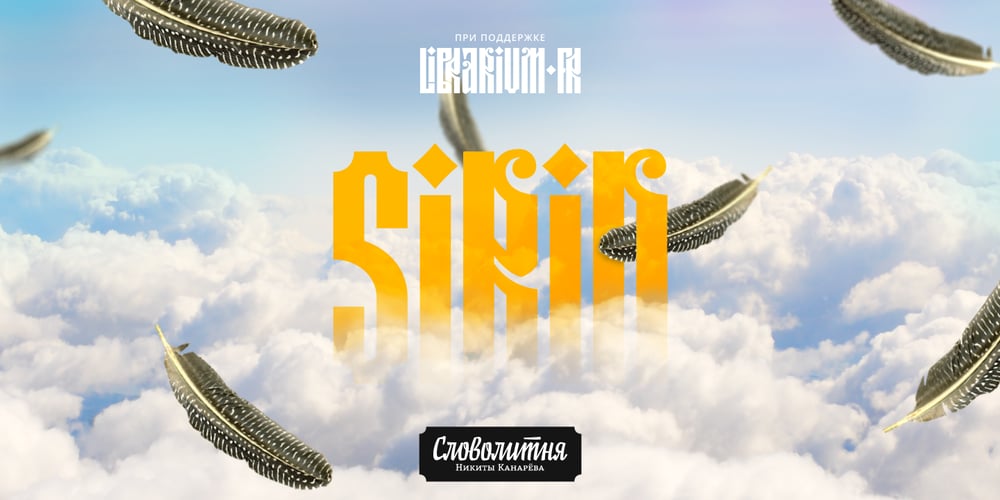
Sirin
Sirin font
Sirin Font Family was designed by Nikita Kanarev and published by Nikita Kanarev. Sirin contains 1 styles and family package options. Modern display font Sirin. The font contains more than 8000 ligatures. Based on the aesthetics of the Ligature.